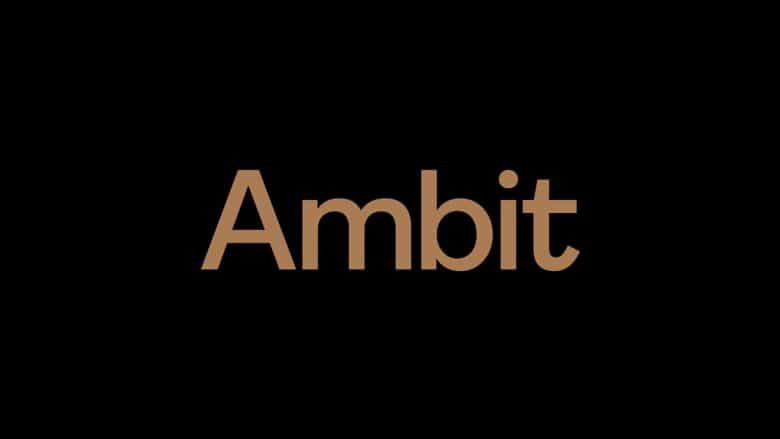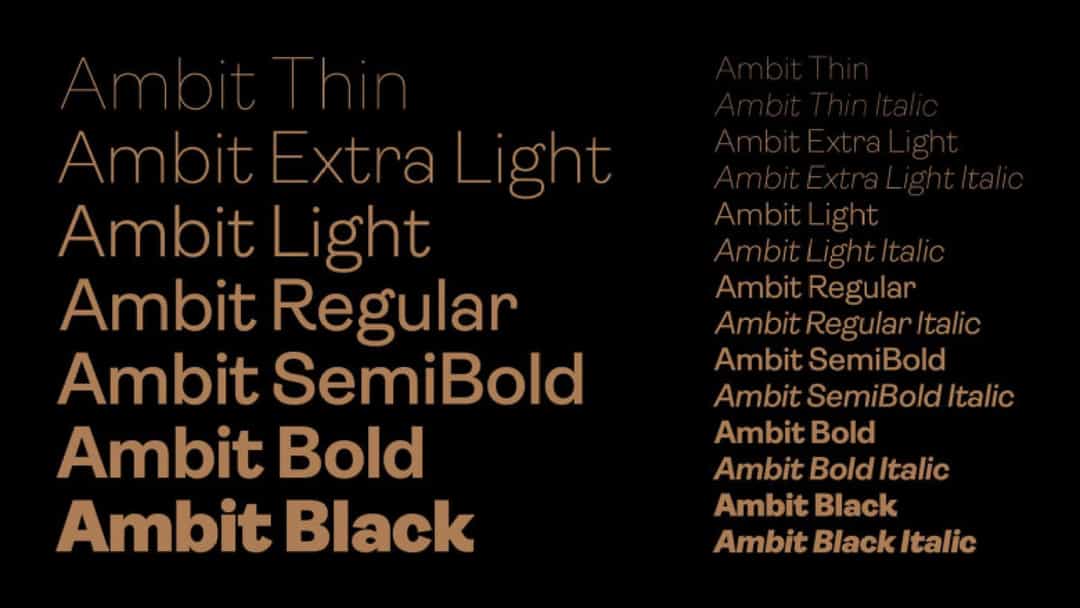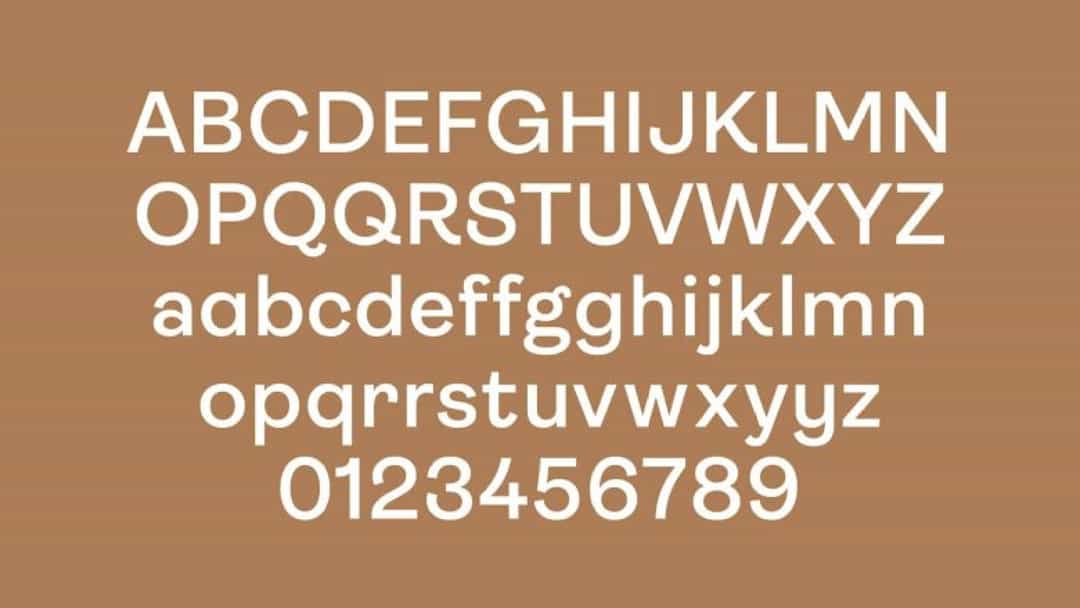
Ambit is an original sans serif font inspired by grotesques of the past but adapted for use today. Its most distinctive feature is its curvier letterforms such as “f” and curlier ones like “r”, as well as their curvier counterparts found in Stylistic Set 02 which you may opt for instead. Forms like c, C, S and S also tend to bend back on themselves creating its distinctive look. There are even versions with “R” or “K” having curled legs!